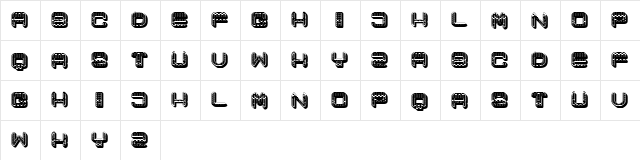
Cronica Hexagon Regular
Design Context for Cronica Hexagon Typeface
Cronica Hexagon is a composed and adaptable typeface that performs quietly and consistently across a wide range of design contexts.